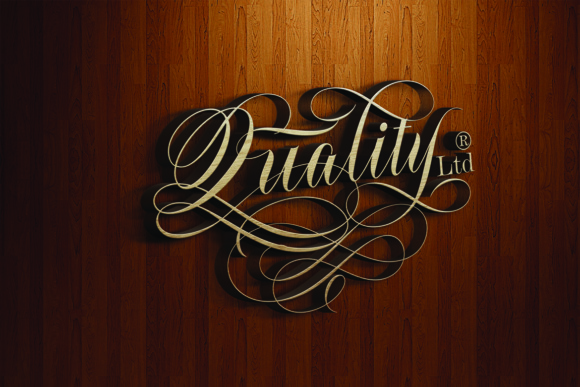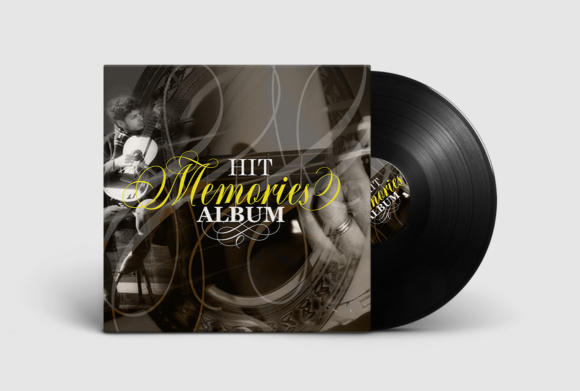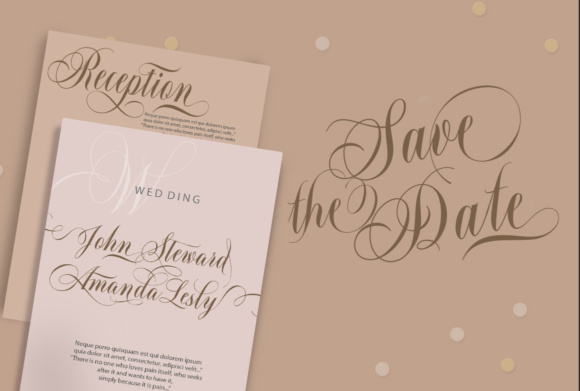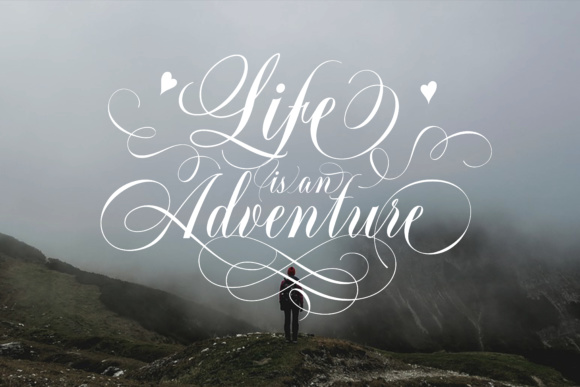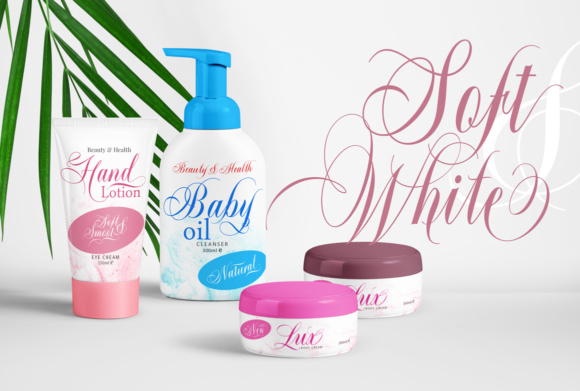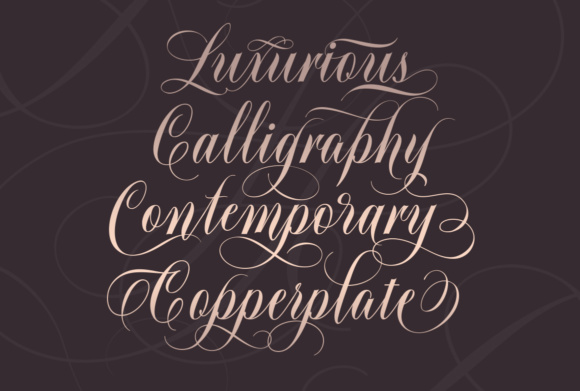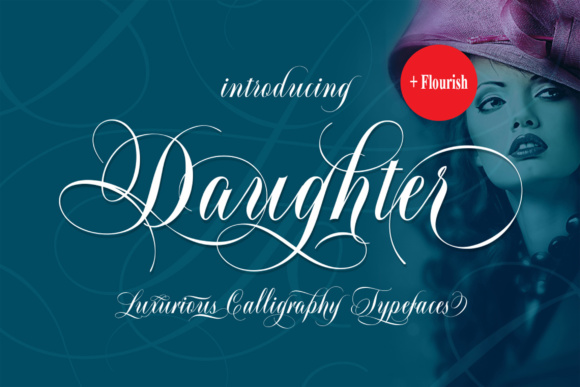
Introducing Daughter Script Font: The Epitome of Elegance and Sophistication
In the realm of typography, few fonts manage to convey the essence of luxury and elegance as effortlessly as the Daughter Script Font. This exquisite, handwritten calligraphy typeface has been meticulously crafted to bring a touch of sophistication and femininity to a wide array of design projects. Whether you’re a designer looking to elevate your brand’s visual identity or a crafter seeking the perfect font for your next project, Daughter Script Font is an exceptional choice that promises to leave a lasting impression.
The Essence of Daughter Script Font
Daughter Script Font is characterized by its flowing, cursive lines and elegant feel, which make it an ideal choice for designs that require a personal and luxurious touch. This font is not just a means of communication; it’s an expression of style and refinement. Its versatility allows it to be used across various platforms, from digital media to print, making it a valuable addition to any designer’s toolkit.
Key Features of Daughter Script Font
- Elegant and Luxurious: The font’s sophisticated design lends an air of luxury to any project, making it perfect for high-end branding, fashion, and beauty designs.
- Feminine Touch: Its graceful and fluid strokes add a feminine touch, ideal for designs aimed at a female audience or for projects that require a soft, elegant look.
- Versatile: Suitable for a variety of applications, including logos, quotes, invitations, signatures, and more.
- Handwritten Calligraphy: Offers a personal and unique feel, distinguishing it from more traditional typefaces.
Applications of Daughter Script Font
The applications of Daughter Script Font are vast and varied, limited only by your imagination. Here are a few ideas to get you started:
- Logos and Branding: Use Daughter Script Font to create a memorable and elegant logo that stands out from the competition.
- Invitations and Announcements: Add a touch of class to your invitations, whether it’s for a wedding, a baby shower, or any other special occasion.
- Social Media Graphics: Elevate your social media presence with stylish quotes, announcements, and promotional materials.
- Signatures and Stationery: Give your personal or business correspondence a sophisticated look with beautifully designed signatures and stationery.
Why Choose Daughter Script Font?
In a sea of fonts, Daughter Script Font stands out for its unique blend of elegance, luxury, and versatility. Here are a few reasons why it should be your go-to choice for your next design project:
- Unique and Memorable: Its distinctive style ensures that your designs will be remembered.
- Easy to Read: Despite its elegant and cursive nature, Daughter Script Font remains highly legible, making it practical for a range of applications.
- Support for Multiple Languages: Cater to a global audience with a font that supports multiple languages.
Daughter Script Font is more than just a typeface; it’s a design statement that speaks of luxury, elegance, and sophistication. Whether you’re a professional designer or a DIY crafter, this beautiful handwritten calligraphy font has the potential to transform your projects, adding a touch of femininity and refinement that’s sure to captivate your audience. With its versatility, elegance, and wide range of applications, Daughter Script Font is an invaluable resource for anyone looking to elevate their design work.